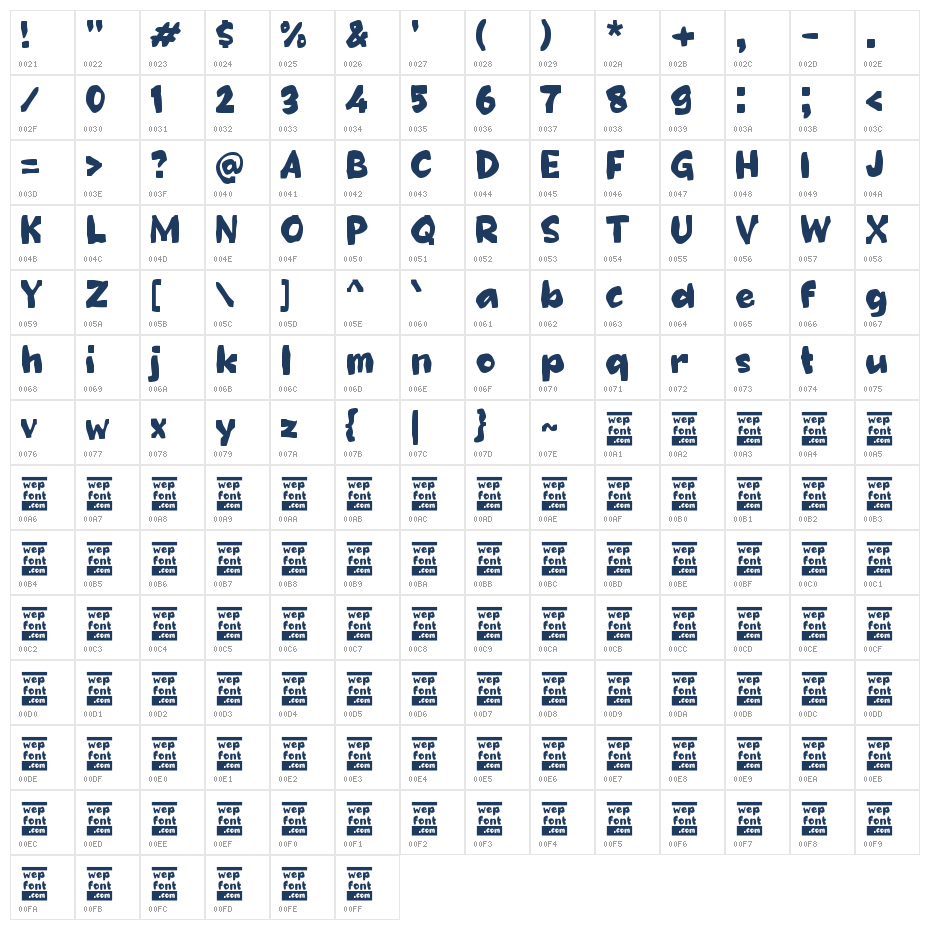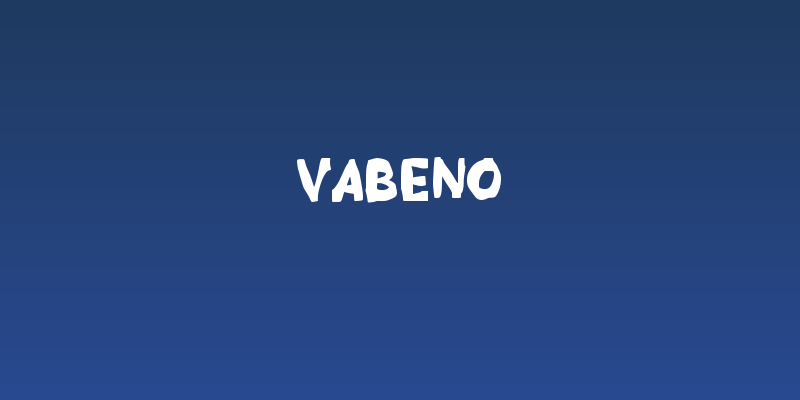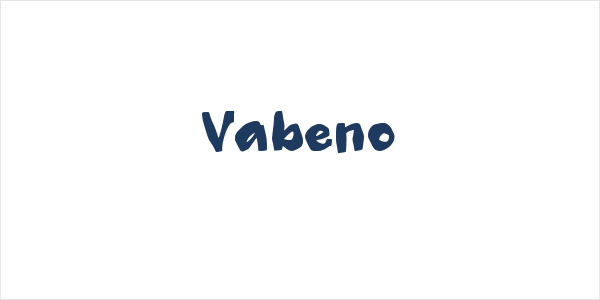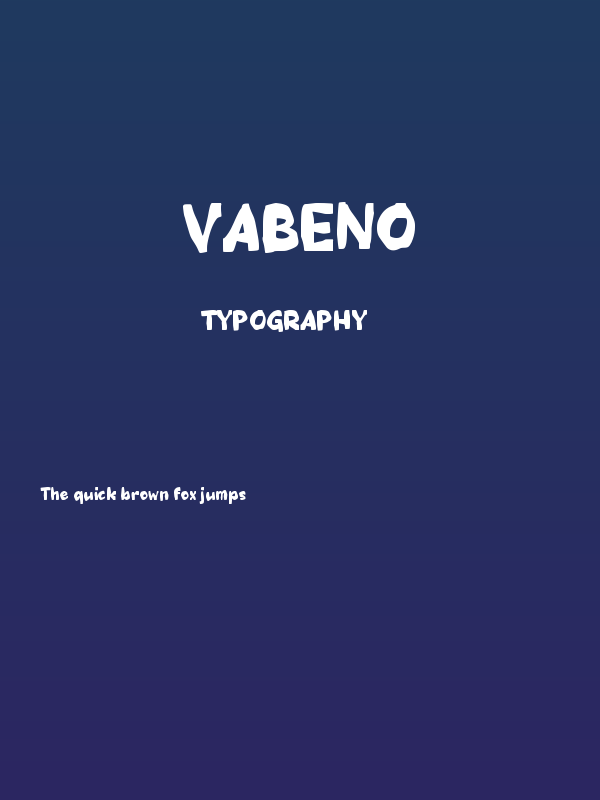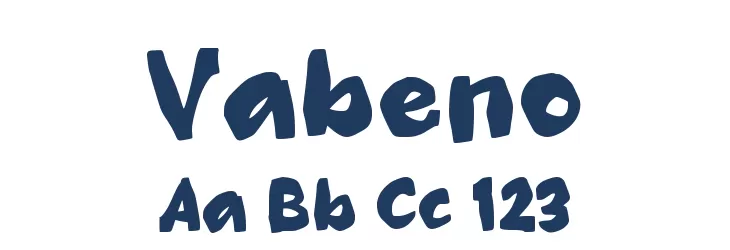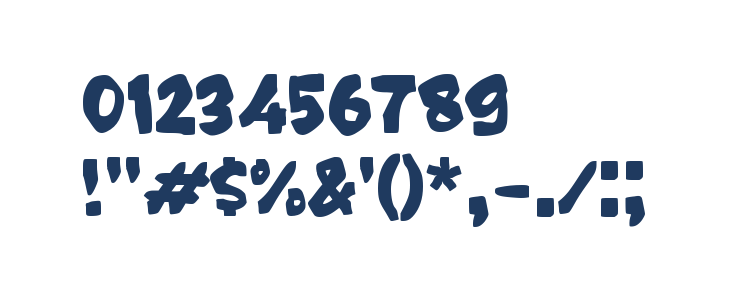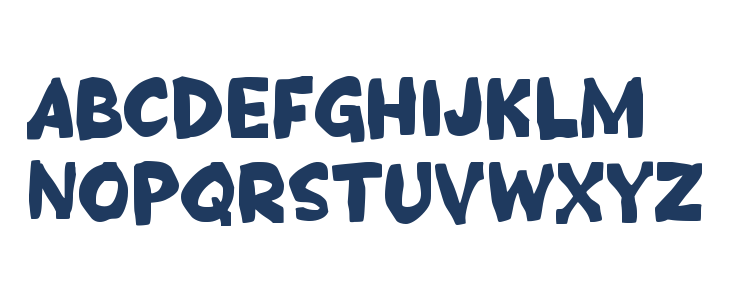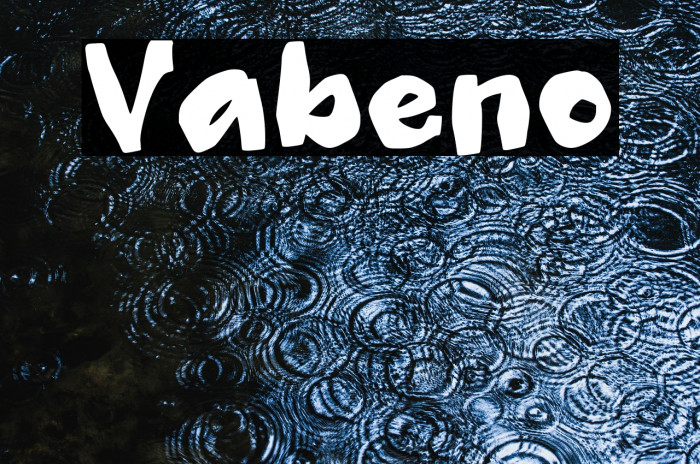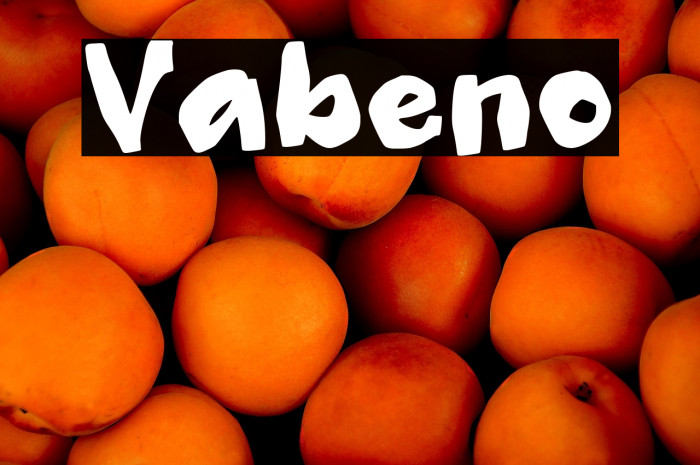
Vabeno Font
Vabeno Description
A bold, playful, and chunky handwritten style font with irregular, rounded shapes.
| Overall Style | Playful, Casual, Handwritten |
| Use Case | Headlines, Posters, Children's books, Logos |